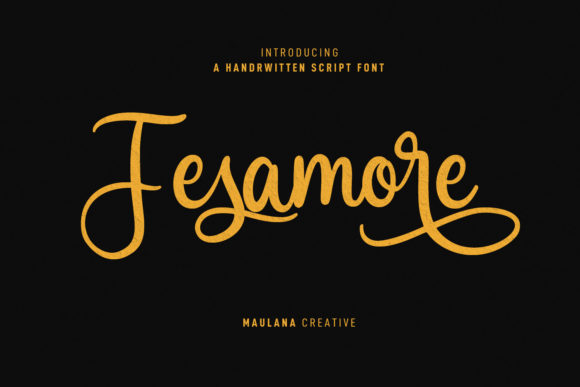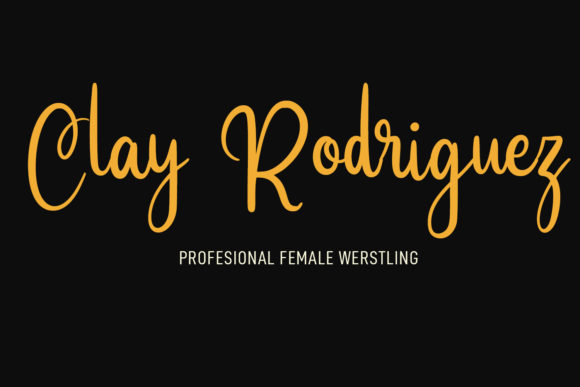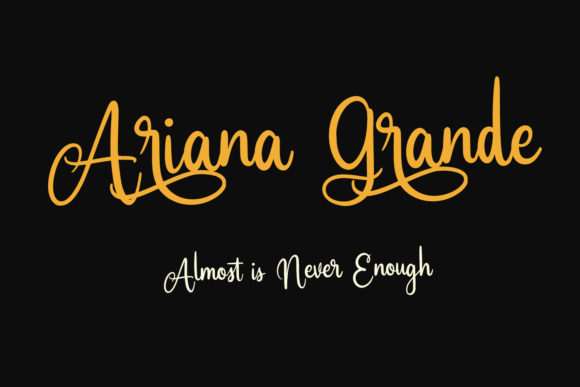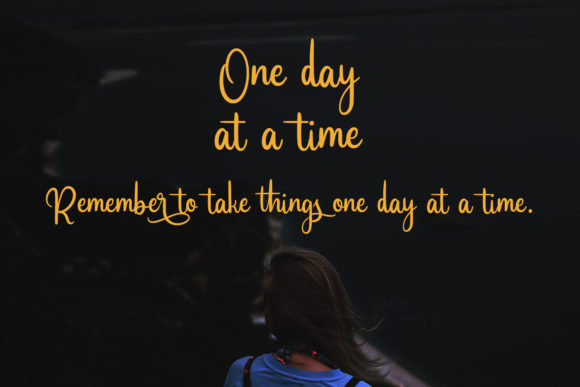
Fesamore Script Font
About the Fesamore Script Font
Introducing the Fesamore Script Font, a beautifully crafted typeface designed to elevate your creative projects. Fesamore Script is a fancy and cursive script font. It features light contrast strokes, fun characters, ligatures and alternates. Fesamore will look extraordinary in a variety of contexts.
Fesamore Script’s playful energy and light strokes make it ideal for headlines, short text blocks on invitations or packaging, and logos requiring a touch of whimsical elegance. It excels in branding for boutiques, cafes, or children’s products. However, its cursive nature and decorative details make it unsuitable for body text or UI elements where readability is paramount. Avoid using it in long paragraphs or small sizes.
Pairing Fesamore Script with a clean sans-serif like Lato or Open Sans for body copy provides a strong contrast, balancing its playful energy with clear readability. Alternatively, a classic serif like Garamond or a more geometric sans-serif like Montserrat can create a sophisticated look, depending on the desired mood.
The overall personality of Fesamore Script is cheerful and slightly whimsical, yet sophisticated enough for upscale applications. Its delicate character makes it suitable for projects emphasizing joy, creativity, and a touch of lightheartedness.
Fesamore Script Font Usage Examples
Fesamore Script Font Example